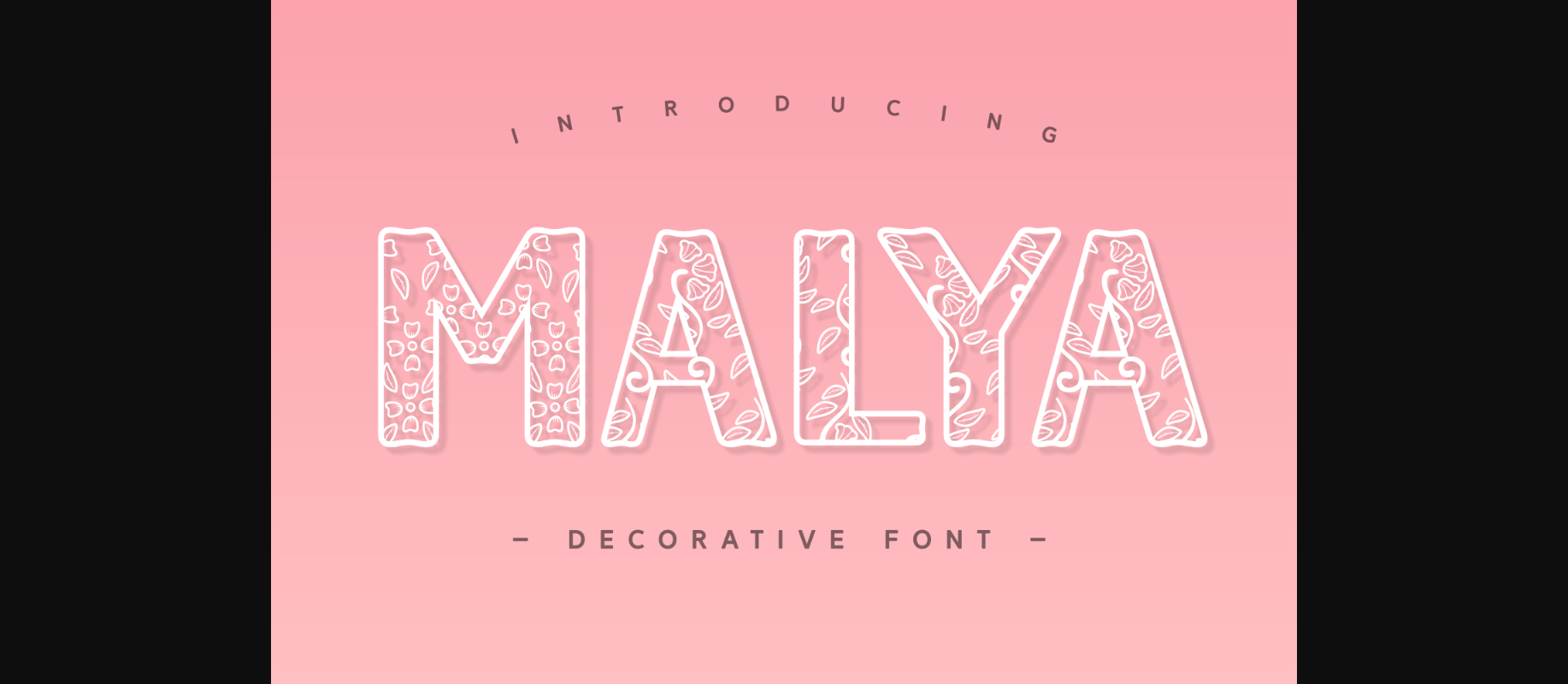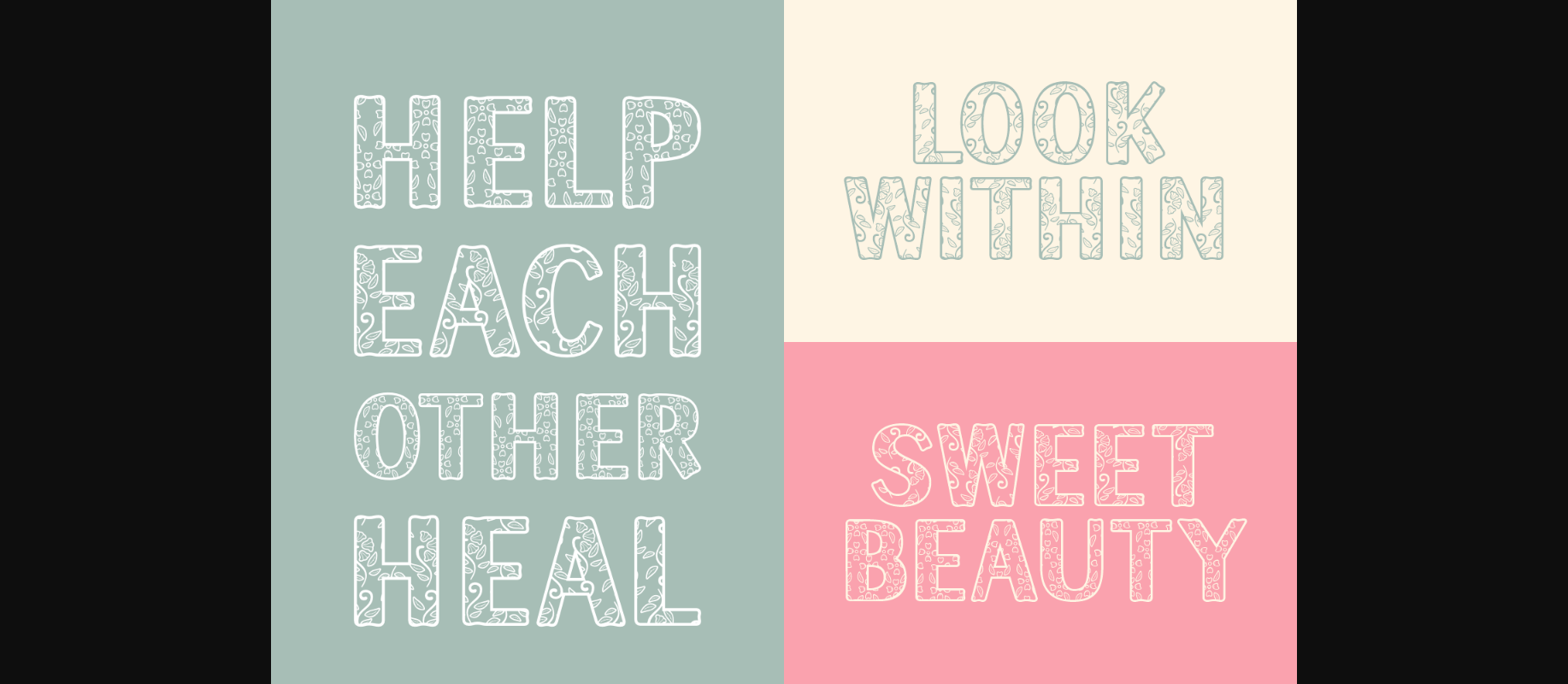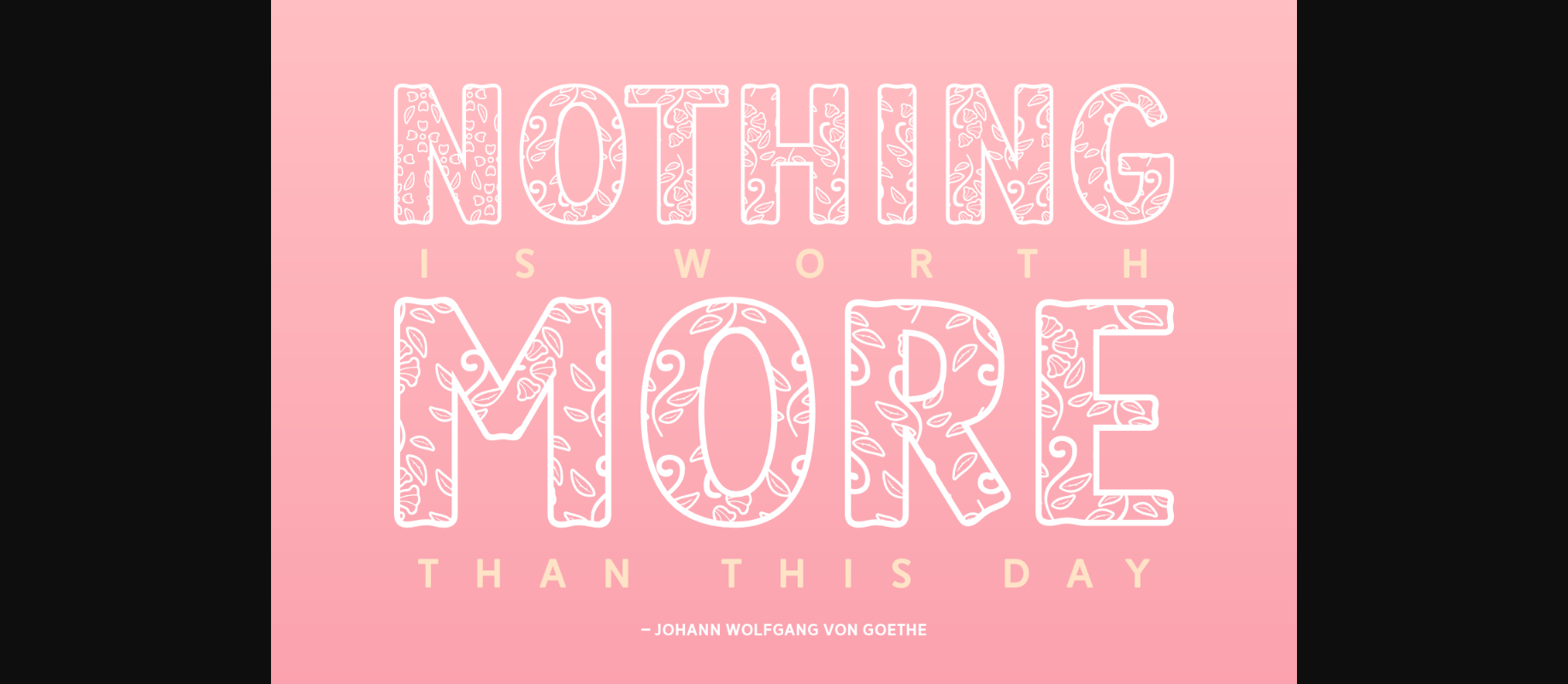
About Malya Font
Malya is a fresh and dainty decorative font featuring unique characters that make any product irresistible! Use it on your most creative product packaging, apparel designs, storybooks, covers, weddings designs, and branding projects.